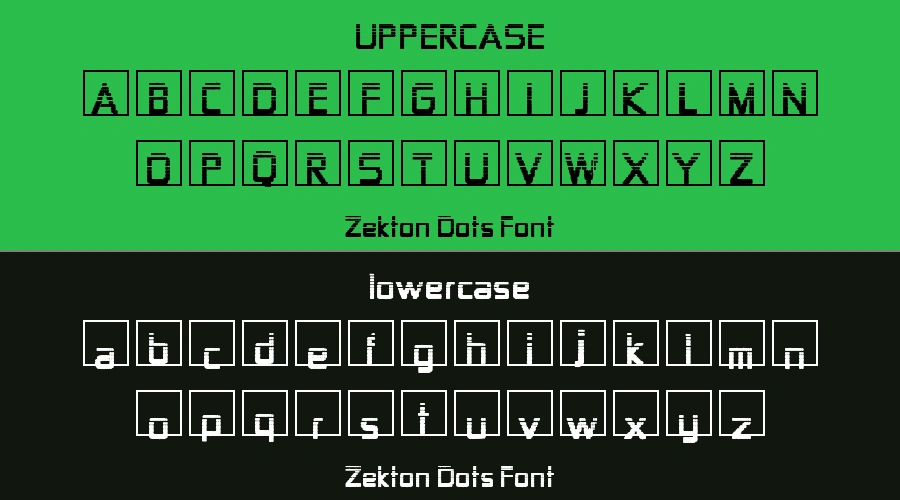
About Zekton Dots Font
Designed with precision, Zekton Dots Font merges fluid motion with production readiness in every character. This versatility makes it particularly effective for corporate communications, where memorability and technical mastery directly impact communication quality. Each letterform demonstrates meticulous craftsmanship.
Technical excellence shines through elements like dramatic weight and proportional figures, enhancing typographic versatility. In footnotes settings, Zekton Dots Font proves its worth through superior numerical alignment. The thoughtful execution of bowl shape and engineering heritage ensures professional results.